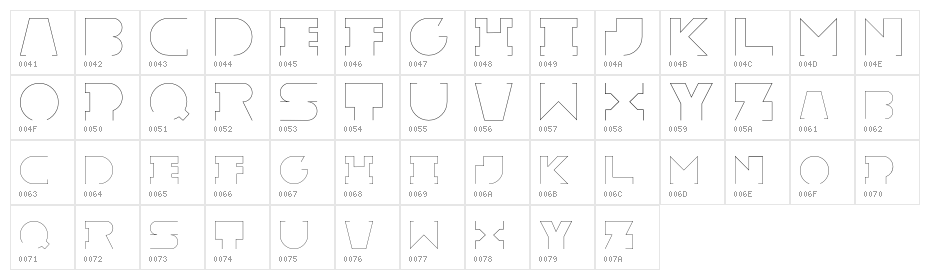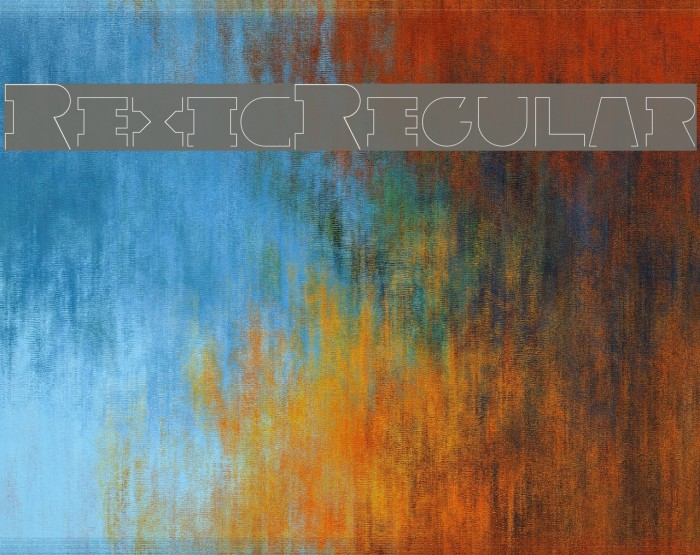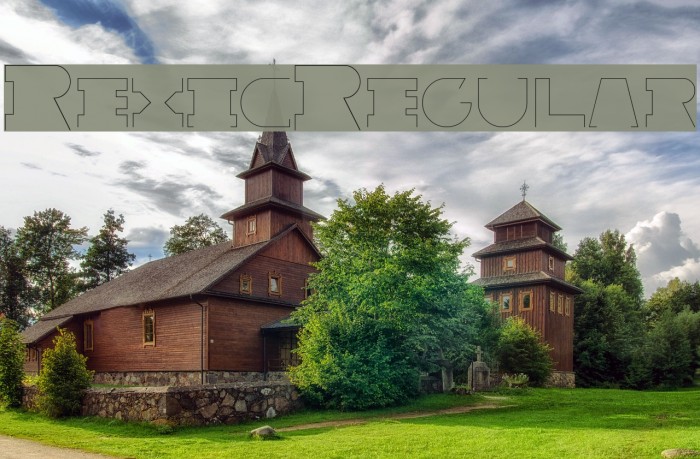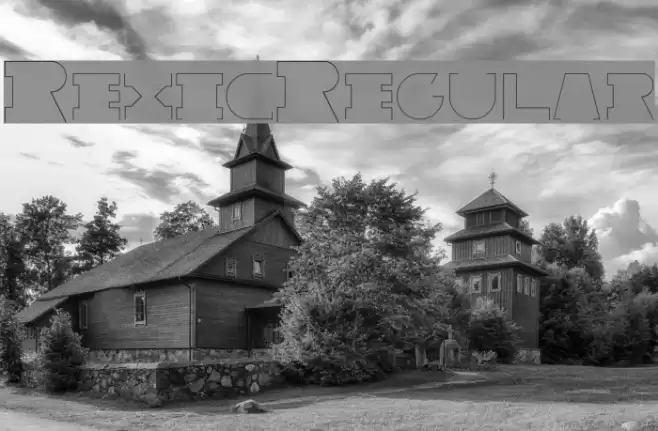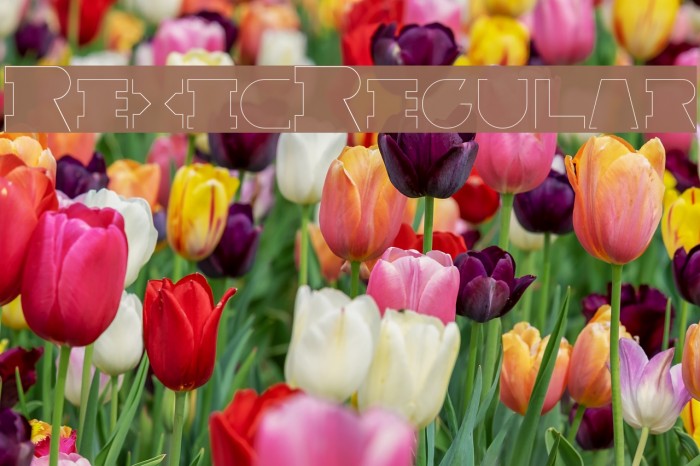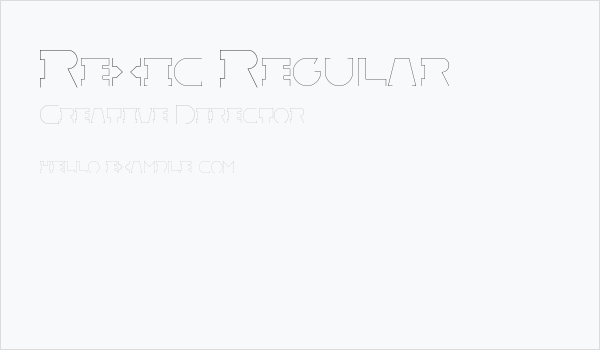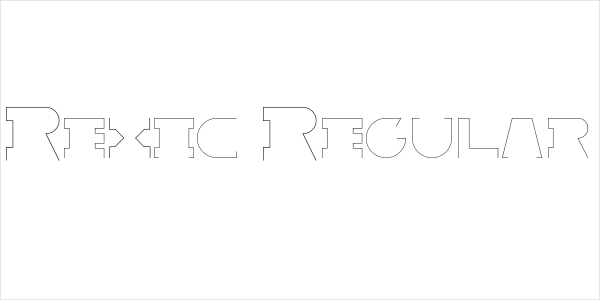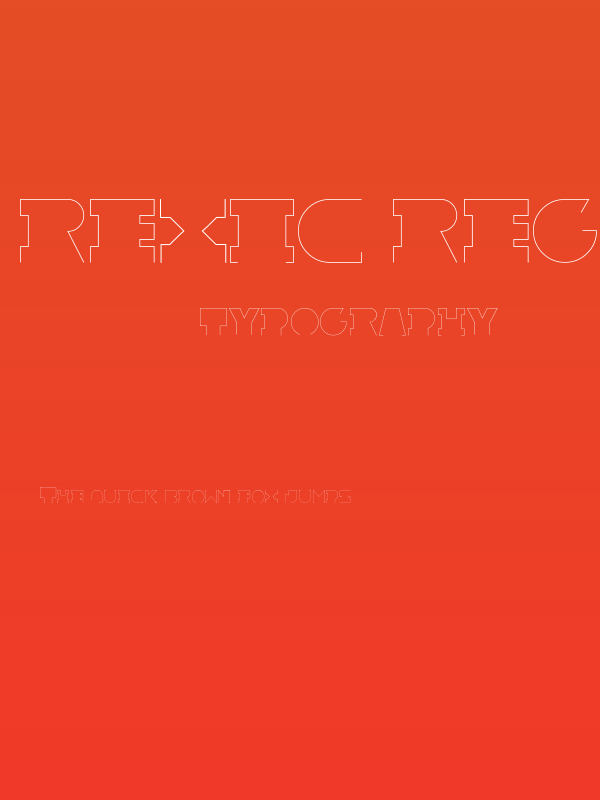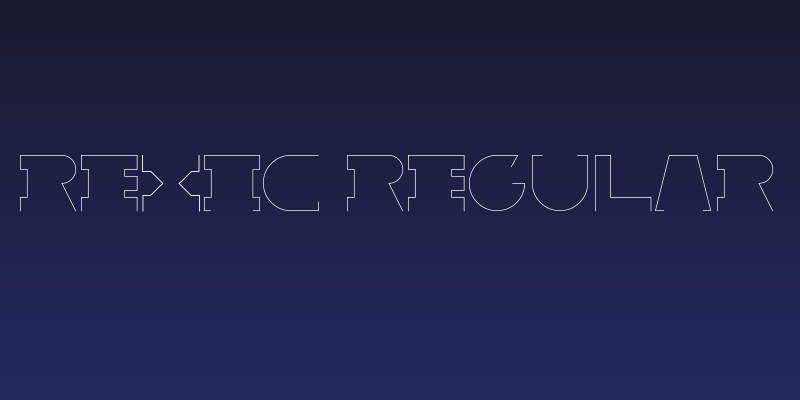
Rexic-Regular Font
Rexic-Regular Description
This font features a unique, geometric design with sharp angles and precise lines, creating a futuristic and modern appearance. The characters are constructed with a consistent stroke width, giving a uniform look across the alphabet. The uppercase letters exhibit a distinct architectural style, with some characters incorporating unexpected cuts and angles that add to the font's edgy aesthetic. The overall design is minimalistic yet bold, making it suitable for projects that require a strong visual impact. The font's clean lines and structured form make it versatile for various design applications.
| Proposed Projects | Ideal for branding, logos, posters, and digital media that require a modern and edgy look. |